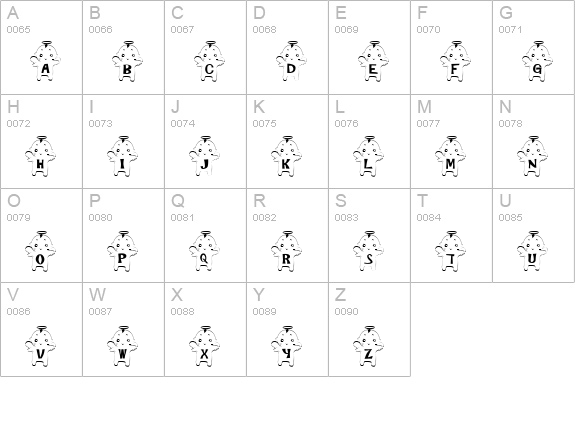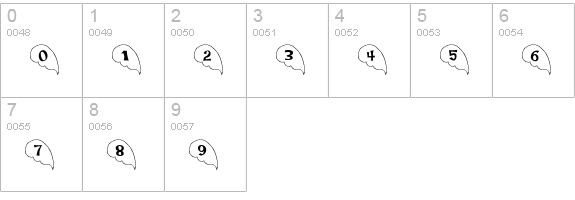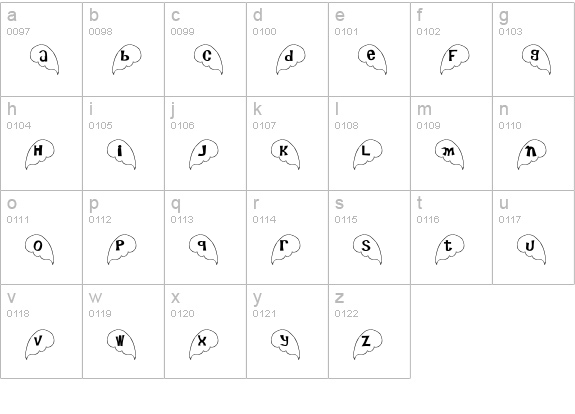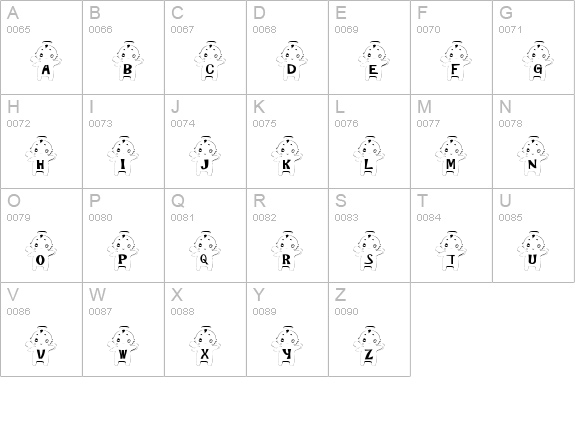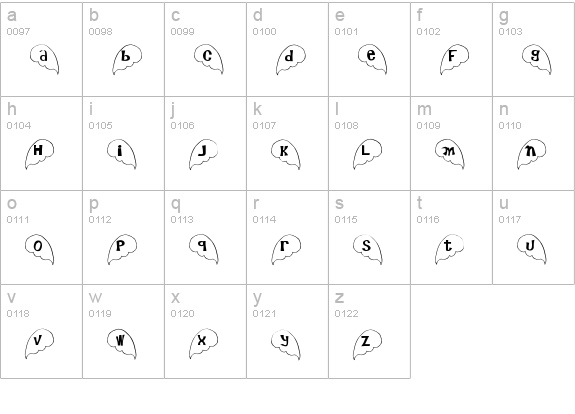
Angel Font is a whimsical and elegant typeface that exudes charm and grace. With its delicate strokes and flowing curves, this font brings a touch of ethereal beauty to any design project. Whether used for invitations, branding, or social media graphics, Angel Font adds a touch of sophistication and elegance. The best part is, Angel Font is available for free download at FontsMarket.com. Now you can elevate your design projects with this stunning font without breaking the bank. Don't miss out on this opportunity to add a touch of angelic beauty to your creations with Angel Font. Download it today and let your creativity soar.